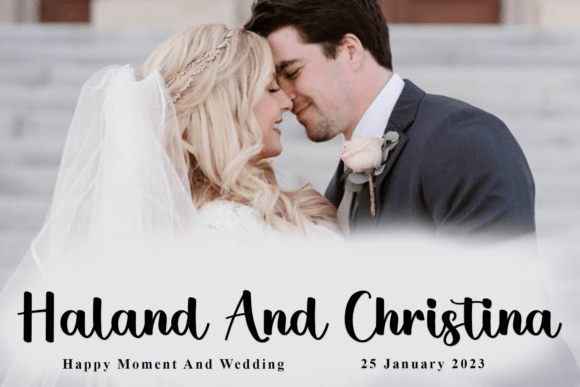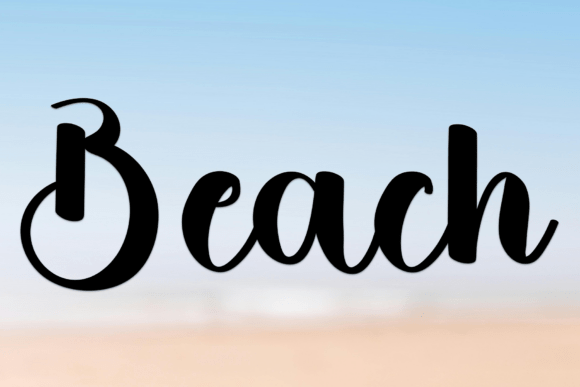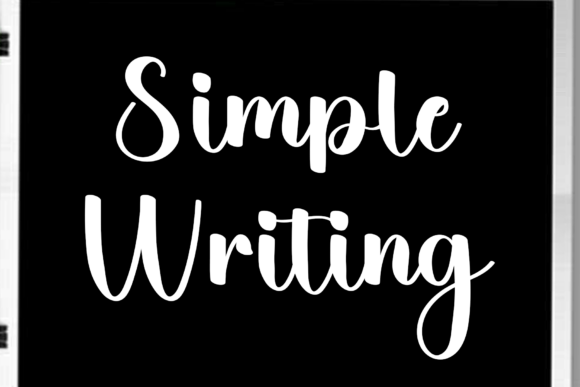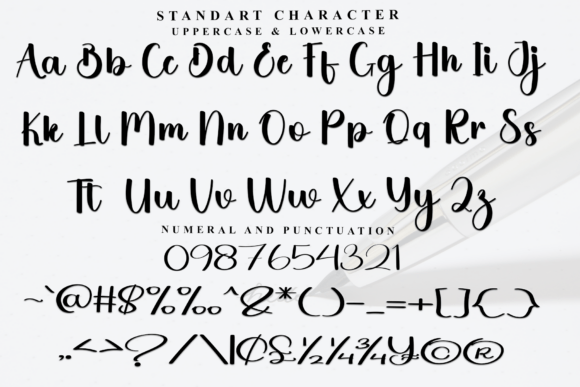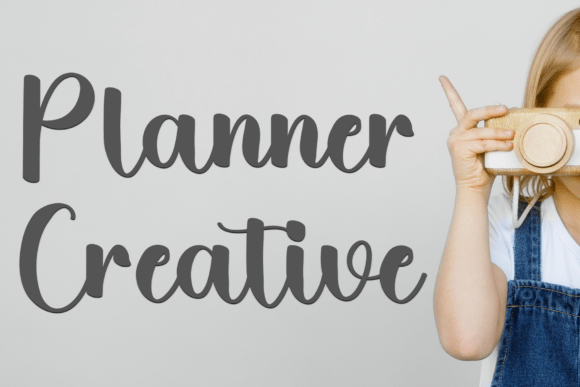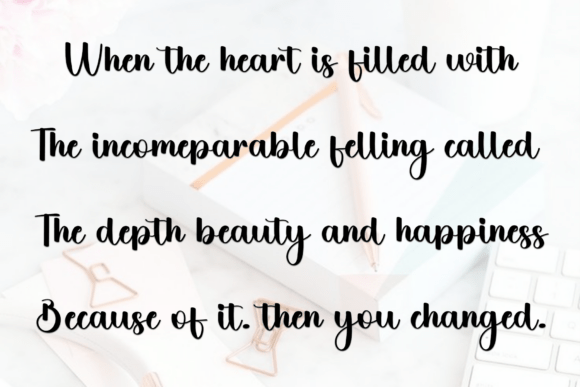
Bridges Font: A Festive and Merry Typeface for the Holiday Season
The holiday season is upon us, and what better way to get into the spirit than with a font that’s as festive and merry as Bridges Font? This decorative typeface is designed to capture the magic and wonder of the holiday season, making it perfect for greeting cards, gift tags, and holiday-themed projects.
A Whimsical Flair for Your Designs
Bridges Font is a beautifully crafted typeface that adds a touch of enchantment to your designs. Its decorative elements and whimsical flair make it stand out from more traditional fonts, giving your words a cheerful and nostalgic ambiance that’s sure to delight. Whether you’re a designer, crafter, or simply someone who loves the holiday season, Bridges Font is the perfect choice for adding a little extra magic to your projects.
So, what can you use Bridges Font for? The possibilities are endless! Here are a few ideas to get you started:
- Greeting cards: Create beautiful, one-of-a-kind holiday cards that will make your loved ones feel special.
- Gift tags: Add a personal touch to your gifts with custom gift tags that feature the festive and merry vibe of Bridges Font.
- Holiday-themed projects: Whether you’re creating a festive banner, a holiday-themed party invitation, or a seasonal craft project, Bridges Font is the perfect choice.
One of the best things about Bridges Font is that it’s PUA encoded, which means you can access all of the amazing glyphs and ligatures with ease. This makes it simple to add decorative elements and special characters to your designs, giving you even more flexibility and creative freedom.
Why Choose Bridges Font?
So, why should you choose Bridges Font for your holiday projects? Here are just a few reasons:
- Unique and eye-catching: Bridges Font is a one-of-a-kind typeface that’s sure to make your designs stand out.
- Festive and merry: This font is designed to capture the spirit of the holiday season, making it perfect for creating festive and fun designs.
- Easy to use: With PUA encoding, you can access all of the amazing glyphs and ligatures with ease, making it simple to add decorative elements to your designs.
Tips for Using Bridges Font
Here are a few tips for getting the most out of Bridges Font:
- Experiment with different sizes and colors: Don’t be afraid to try out different sizes and colors to see what works best for your design.
- Mix and match with other fonts: Bridges Font pairs well with a variety of other fonts, so feel free to experiment with different combinations.
- Don’t overdo it: While Bridges Font is festive and fun, it’s possible to overdo it. Balance your design with plenty of white space and simple elements.
Bridges Font is a beautiful and festive typeface that’s perfect for the holiday season. With its decorative elements and whimsical flair, it’s sure to add a touch of enchantment to your designs. Whether you’re a designer, crafter, or simply someone who loves the holiday season, Bridges Font is a great choice for creating festive and fun designs. So why wait? Download Bridges Font today and let your typography shine with the magic of this beautiful font!